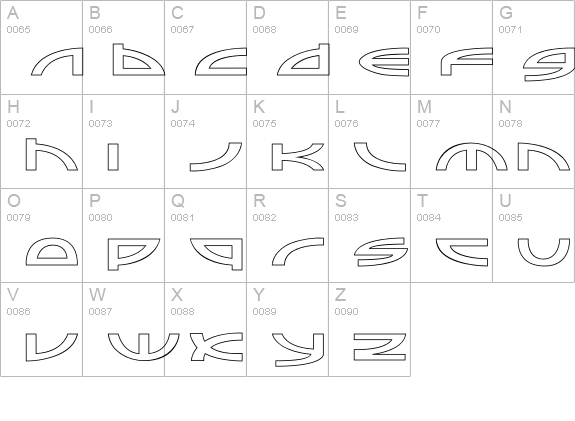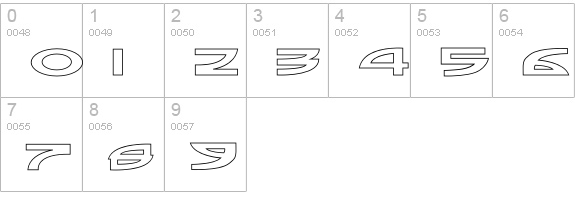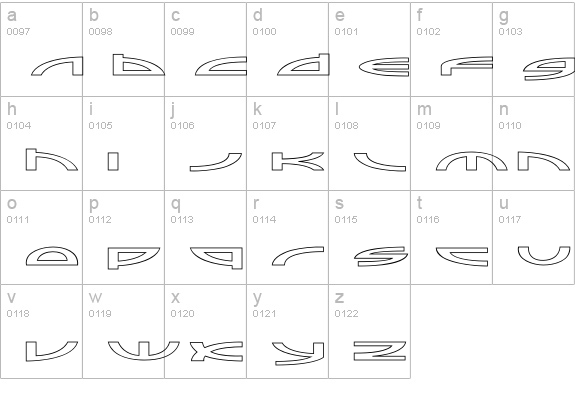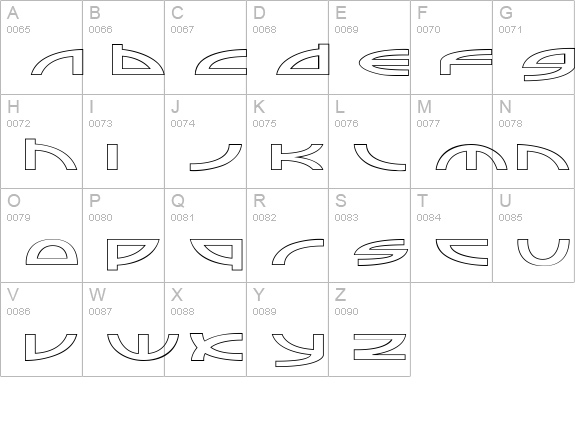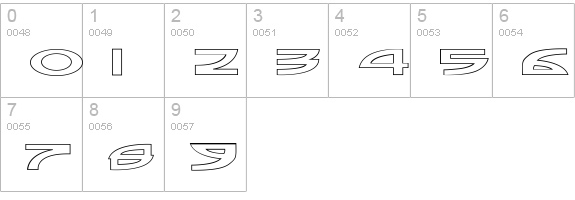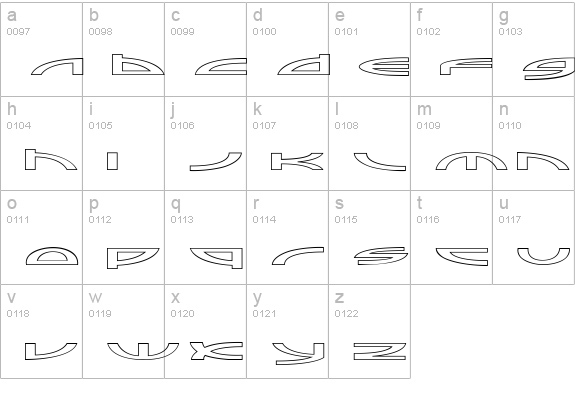
Sampler-Outline Font Details
The Sampler-Outline font is a stunning display typeface that adds a touch of elegance and sophistication to any project. With its sleek and modern design, this font is perfect for creating eye-catching headlines, logos, and posters. Featuring clean lines and sharp edges, the Sampler-Outline font exudes a sense of professionalism and style. Its unique outline style gives it a distinct and contemporary look that is sure to stand out from the crowd. One of the best things about the Sampler-Outline font is that it is completely free. Yes, you read that right - this incredible font is freely available to download at FontsMarket.com. Whether you're a professional designer or a hobbyist, you can now access this high-quality font without spending a dime. With the Sampler-Outline font, you have the freedom to unleash your creativity and bring your designs to life. Its versatility allows it to be used in a wide range of design projects, from branding and advertising to web design and social media graphics. So why wait? Don't miss out on the opportunity to enhance your designs with the Sampler-Outline font. Download it for free from FontsMarket.com today and take your designs to new heights.